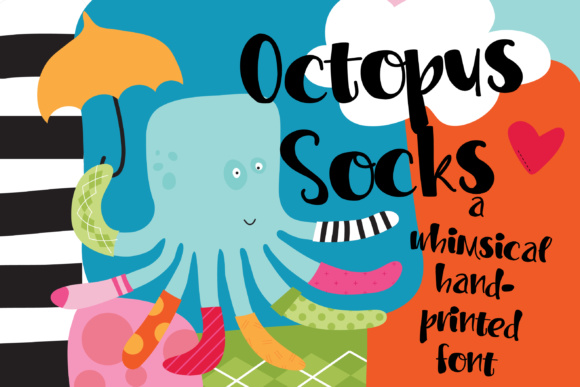
Embark on a typographic adventure with the PN Octopus Socks Font, a captivating script font that exudes charm and whimsy. Created by the talented team at Illustration Ink, this hand-drawn font boasts a captivating mix of thick and thin lines, adding a touch of playfulness and intrigue to your designs.
Step into a world where letters dance and characters come alive. The PN Octopus Socks Font is perfect for adding a personal touch to your creative projects, whether you're a seasoned designer or just starting out. Let your imagination run wild as you craft eye-catching logos, vibrant social media posts, or unique branding materials that leave a lasting impression.
With its playful yet sophisticated style, the PN Octopus Socks Font is ideal for projects that demand a touch of whimsy and creativity. Transport your audience to a world of wonder as they navigate through your designs, captivated by the font's charming personality.
The PN Octopus Socks Font is incredibly versatile, adapting seamlessly to a wide range of design aesthetics. Whether you prefer a classic, elegant look or a more modern, edgy vibe, this font has the versatility to elevate your designs to new heights. Unleash your creativity and let the PN Octopus Socks Font guide you on a journey of typographic exploration.
Don't miss out on the opportunity to add a touch of magic to your designs. Dive into the world of the PN Octopus Socks Font today and unlock endless possibilities for captivating and enchanting creations.